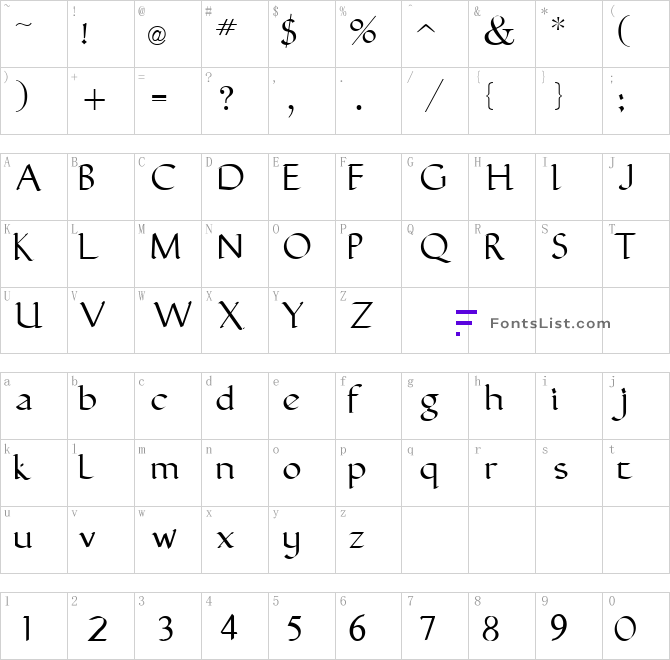
- Font Name:Base:JewishHolidays
Base-JewishHolidays.ttf is a very beautiful artistic font, Base-JewishHolidays.ttf is widely used in the design and printing of various books and pictures,Base-JewishHolidays.ttf has a strong visual impact,Base-JewishHolidays.ttf is a commonly used font in newspapers, magazines and books, and is used in posters, e-commerce Poster design, store design, logo design, font design and other fields.Base-JewishHolidays.